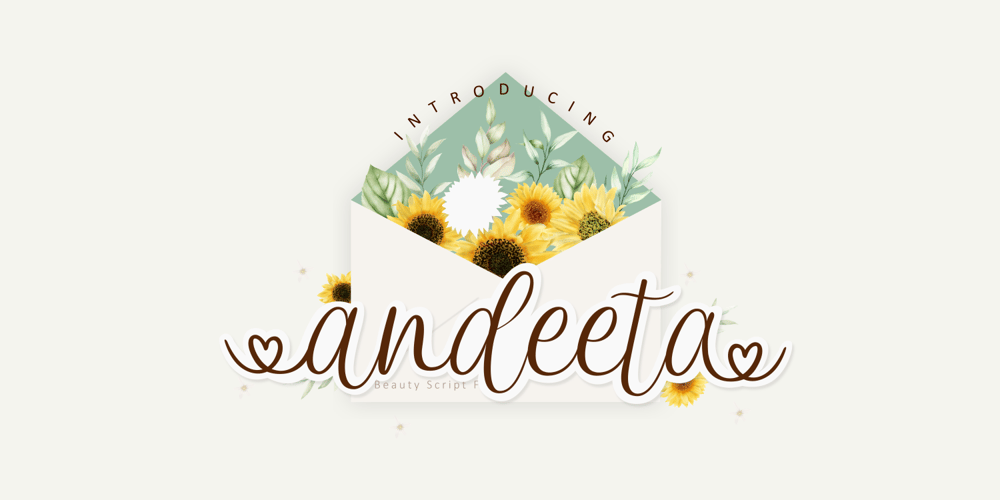
Andeeta
Andeeta font
Andeeta Font Family was designed by Miftahul Habib and published by Tlatous Type. Andeeta contains 1 styles and family package options. Andeeta! A sweet handwritten font that will add fun to your creativity. the font consist of a charming all-caps font and a sweet handwritten script font for the perfect and fun blend of your content.Andeeta has also added 26 doodles to add interest to your content in separate files.Each font file includes uppercase, lowercase, numbers, punctuation, and multilingual support.That’s it! I hope you enjoy it.Feel free to comment if there are issues or queries.You can also say hi to me on Instagram: https://www.instagram.com/tlatoustype/Thank You!